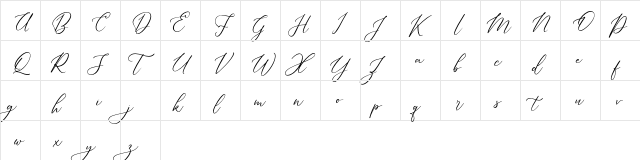
Dellaine FREE Regular
Design Context for Dellaine FREE Typeface
Dellaine FREE is a composed and adaptable typeface that performs quietly and consistently across a wide range of design contexts.
Pro Tip: Use Dellaine FREE in both headline and body roles to test its range before committing to a single application.